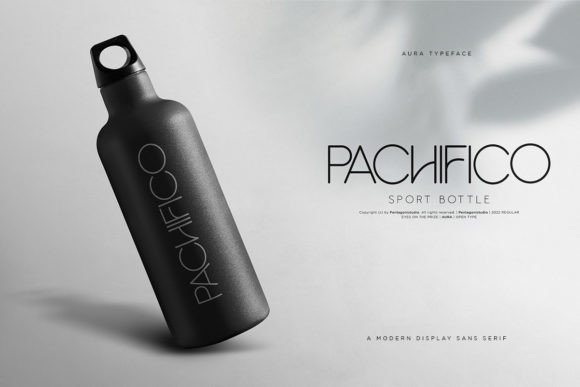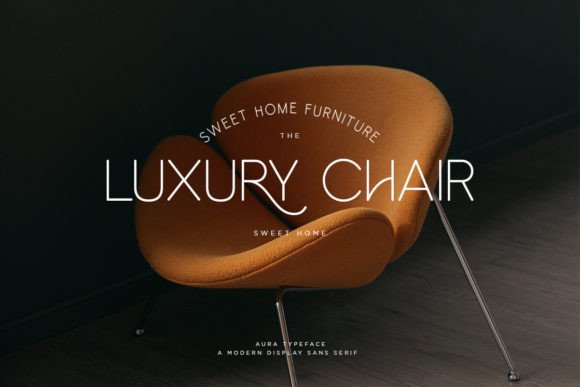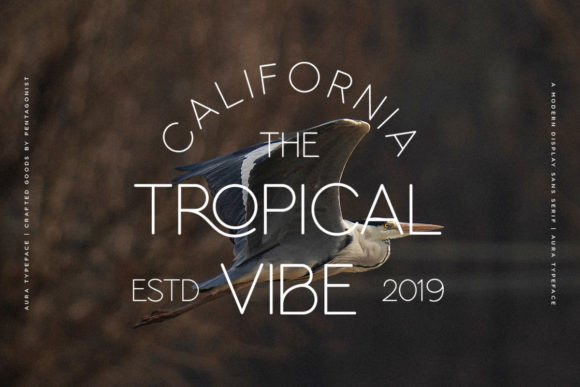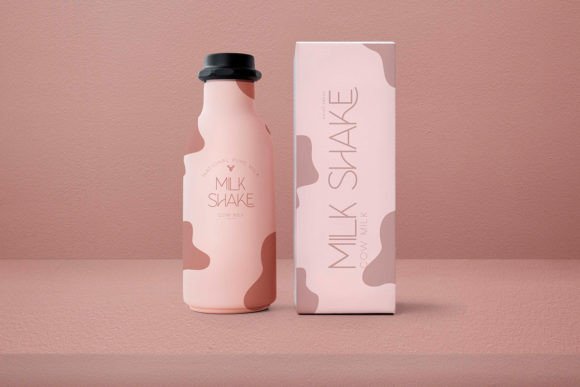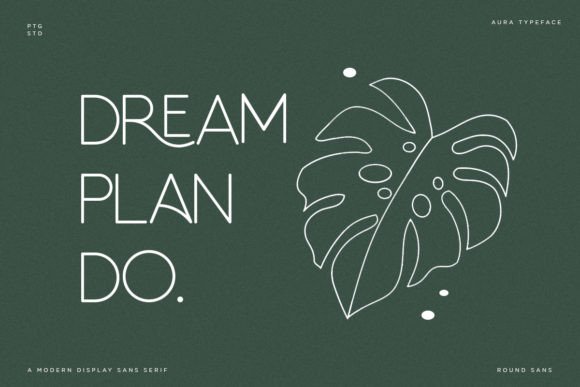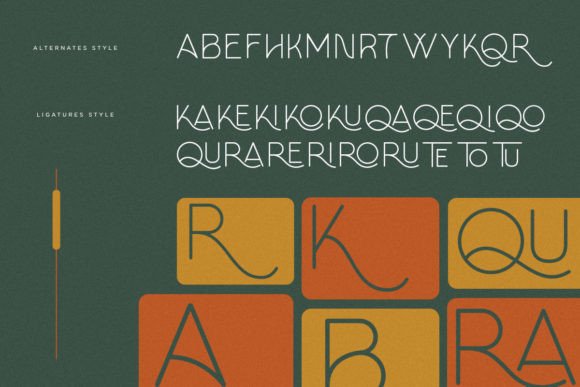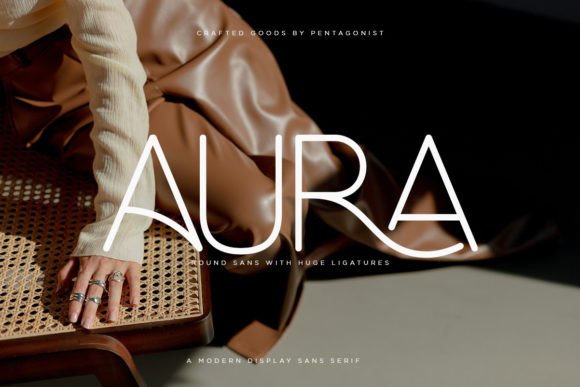
Aura Font: Elevate Your Designs with a Modern, Round Sans-Serif Font
In the world of typography, fonts play a crucial role in conveying messages, evoking emotions, and setting the tone for a brand or design. For designers and crafters, finding the perfect font can be a daunting task, but today, we’re excited to introduce you to Aura Font, a modern, round sans-serif font that’s taking the design world by storm.
What is Aura Font?
Aura Font is a sleek and contemporary sans-serif font that’s designed to make your text stand out. Its rounded edges and smooth curves give it a friendly and approachable feel, making it perfect for a wide range of design projects, from branding and advertising to packaging and digital media.
One of the standout features of Aura Font is its huge ligatures, which add a touch of elegance and sophistication to your text. Ligatures are special characters that combine two or more letters into a single glyph, creating a seamless and flowing effect. With Aura Font, you can access these ligatures with ease, thanks to its PUA (Private Use Area) encoding.
PUA encoding is a system that allows font designers to include additional characters and glyphs in their fonts, which can be accessed using specific keyboard shortcuts or software. In the case of Aura Font, its PUA encoding means that you can easily access all of its glyphs and swashes, giving you maximum flexibility and creative control over your text.
Key Features of Aura Font
- Modern, round sans-serif design: Aura Font boasts a sleek and contemporary design that’s perfect for creating visually appealing text.
- Huge ligatures: Add a touch of elegance and sophistication to your text with Aura Font’s beautiful ligatures.
- PUA encoded: Easily access all glyphs and swashes using specific keyboard shortcuts or software.
- Easy to read: Aura Font’s clear and legible design makes it perfect for body text, headings, and more.
Who is Aura Font for?
Aura Font is perfect for designers, crafters, and anyone looking to elevate their typography game. Whether you’re working on a branding project, creating social media graphics, or designing packaging, Aura Font is a versatile and reliable choice.
Some potential use cases for Aura Font include:
- Branding and logos: Create a lasting impression with Aura Font’s sleek and modern design.
- Social media graphics: Make your social media posts stand out with Aura Font’s huge ligatures and swashes.
- Packaging design: Add a touch of elegance and sophistication to your packaging with Aura Font.
- Digital media: Use Aura Font to create visually appealing text for websites, blogs, and more.
In conclusion, Aura Font is a modern, round sans-serif font that’s perfect for designers and crafters looking to elevate their typography game. With its sleek design, huge ligatures, and PUA encoding, Aura Font is a versatile and reliable choice for a wide range of design projects. Whether you’re working on branding, social media graphics, packaging, or digital media, Aura Font is sure to make your text stand out.